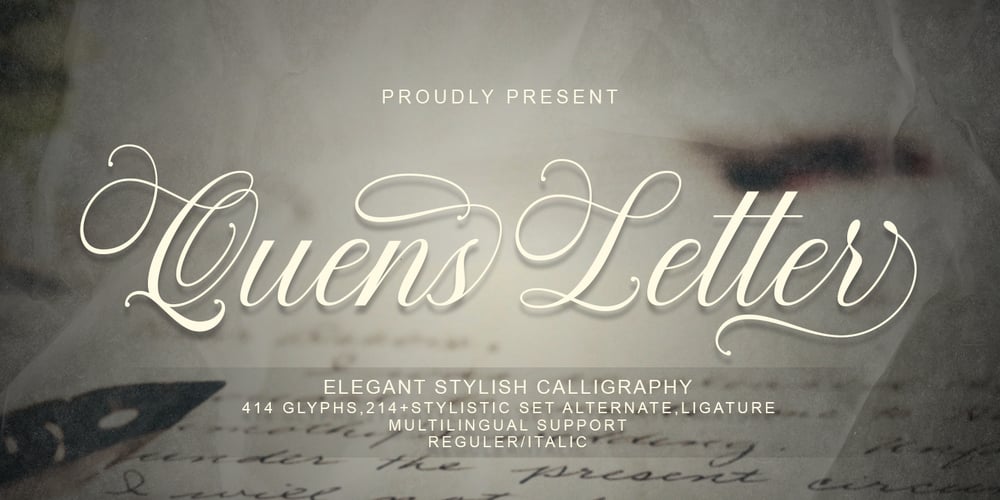
Quens Letter Script Font Family was designed by Zikrillah and published by Suza Studio. Quens Letter Script contains 2 styles and family package options. Quens Letter is an elegantly styled calligraphy script font that comes with beautiful alternate characters. a mix of copper calligraphy with handlettering style. Designed to present an elegant style. Quens Letter is attractive because it is smooth, clean, feminine, sensual, glamorous, simple and very easy to read. The classic style is very suitable to be applied to all types of formal items such as invitations, labels, menus, logos, fashion, make up, stationery, letterpress, romantic novels, magazines, books, greeting/wedding cards, packaging, labels.Quens Letter features 414+ glyphs and 214 alternate characters and ligatures, including multiple language support. With OpenType features with alternative styles, ligatures and swash characters that allow you to mix and match pairs of letters according to your design, and also a touch of ornamentation makes this font look elegant.To enable the Stylistic OpenType alternative, you need a program that supports OpenType features such as Adobe Illustrator CS, Adobe Indesign & CorelDraw X6-X7, Microsoft Word 2010 or later versions. There are additional ways to access swashes, using Character Map (Windows), Nexus Fonts (Windows), Font Books (Mac) or a software program such as PopChar (for Windows and Mac).